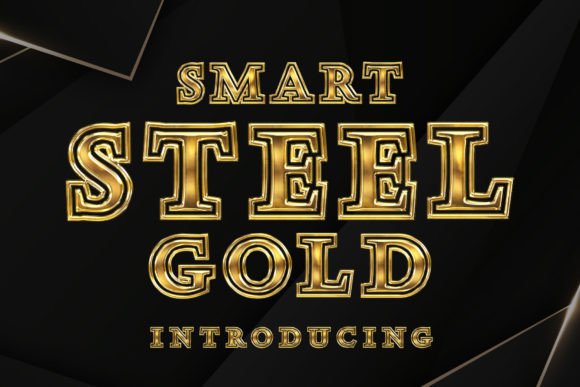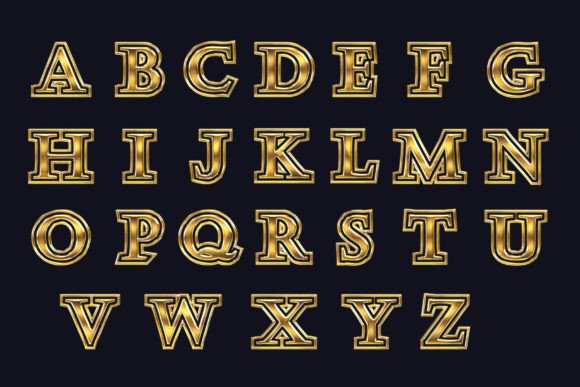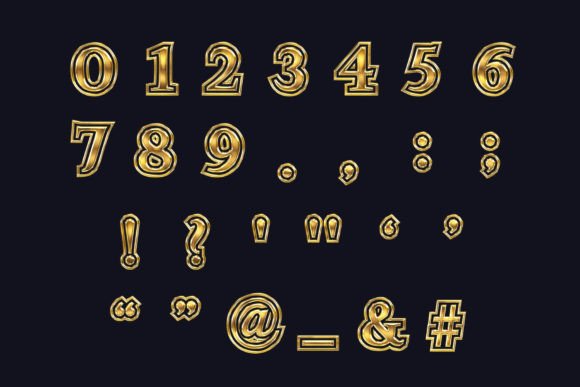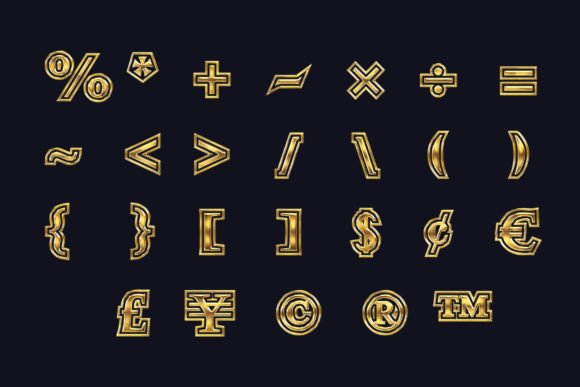
Smart Steel Gold Font
About the Smart Steel Gold Font
Explore the possibilities with Smart Steel Gold Font, a font that offers both beauty and functionality. Smart Steel Gold is a strong and incredibly cool gold color font. For publications, logos, business cards, or printed on t-shirts, this font will look outstanding in any situation. This font will be an incredible asset to your fonts’ library, as it has the potential to elevate any creation.